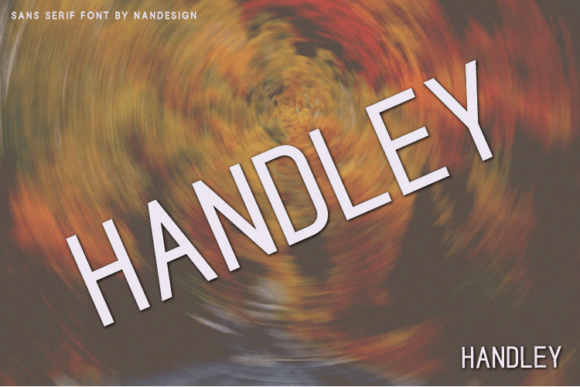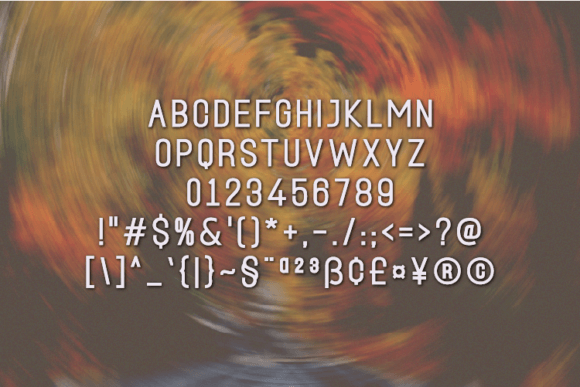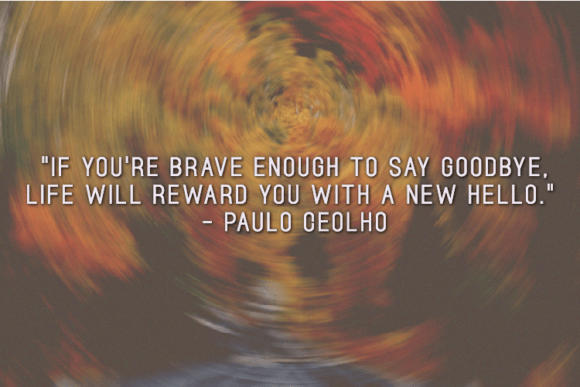
Unlock the Power of Handley Font
There’s nothing quite like the rush of creative excitement when a project starts to come together. You’ve got a vision, a message to convey, and the perfect font to make it all happen – or so you hope! That’s where Handley Font comes in, a stunning sans serif designed to elevate your work and make a lasting impression.
Whether you’re a seasoned designer or just starting out, Handley Font is the perfect addition to your toolkit. Its clean lines, modern feel, and versatility make it an ideal choice for everything from beautiful headings to gorgeous invitations. With Handley Font, you’ll be able to create stunning logos, eye-catching displays, and so much more – all with a single, expertly crafted typeface.
Handley Font Key Features
- Font Family: Handley Font is a modern, sans-serif typeface designed for digital use.
- Font Size: The font comes in multiple weights, ranging from Thin (100) to Black (900), allowing for versatile typographic expression.
- Unique Characteristics: Handley Font features a clean, geometric design with subtle rounded edges, making it highly legible in various contexts.
- Language Support: The font includes a comprehensive character set, supporting multiple languages, including Latin, Cyrillic, and Greek scripts.
Handley Font Review
I recently had the chance to work with the Handley Font, and I must say it’s a unique and intriguing typeface. Here’s my honest review.
- The Handley Font has a distinctive, modern feel that sets it apart from more traditional serif fonts.
- The font is highly legible, even at smaller sizes, making it suitable for a wide range of applications.
- The weight and contrast options allow for a good deal of customization and flexibility.
- The Handley Font may not be the best choice for formal or traditional designs, as its modern feel can be jarring in certain contexts.
- The font may not be suitable for very long blocks of text, as its unique shape and spacing can make it difficult to read in large quantities.
Overall, I think the Handley Font is a great addition to any designer’s toolkit. While it may have some limitations, its unique character and high legibility make it a great choice for modern designs. With a little care and consideration, I think the Handley Font can really add some personality to your projects.
Handley Font Practical Application Guide
Handley font works well for headings and titles, especially in designs related to fashion, beauty, and lifestyle.
Handley font is ideal for creating elegant and sophisticated typography, making it perfect for branding and logo design.
Handley font is a great choice for presentations and documents that require a touch of elegance and sophistication.
Tips for Getting the Most Out of Handley Font
Here are some tips to help you get the most out of Handley font:
- Use it sparingly to add a touch of elegance to your designs.
- Pair it with a clean and simple design to avoid overwhelming the viewer.
Alternatives to Handley Font for Designers
Great Vibes is a modern, elegant script font ideal for creating beautiful headings and titles. It’s perfect for use in wedding invitations, magazine covers, and branding materials.
Comparison to Handley Font: Great Vibes has a more refined and sophisticated look compared to Handley Font’s playful and casual feel. Great Vibes is better suited for formal and high-end designs, while Handley Font is more versatile and suitable for everyday use.
Pacifico is a beautiful, cursive script font inspired by the Pacific coast of Mexico. It’s perfect for creating a warm and inviting atmosphere in designs.
Comparison to Handley Font: Pacifico has a more relaxed and casual feel compared to Handley Font’s playful and energetic vibe. Pacifico is better suited for designs that require a sense of calmness and serenity, while Handley Font is more suitable for designs that need to convey excitement and energy.
Carolyna Pro is a modern, elegant script font with a luxurious feel. It’s perfect for creating high-end designs such as luxury branding, fashion, and lifestyle materials.
How do I access the font’s special features, such as ligatures and swashes?